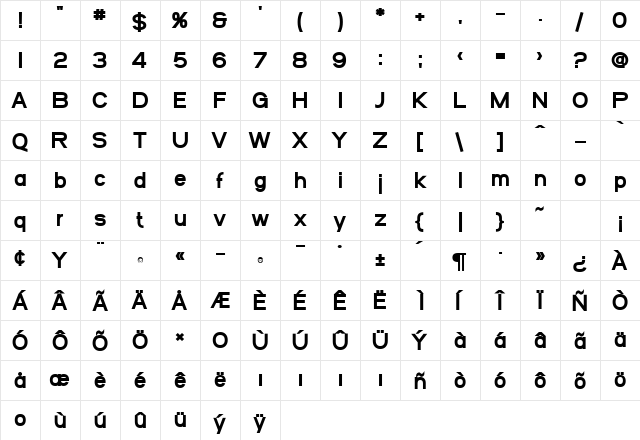
SF Arborcrest Heavy Regular
Design Context for SF Arborcrest Heavy Typeface
SF Arborcrest Heavy is a composed and adaptable typeface that performs quietly and consistently across a wide range of design contexts.